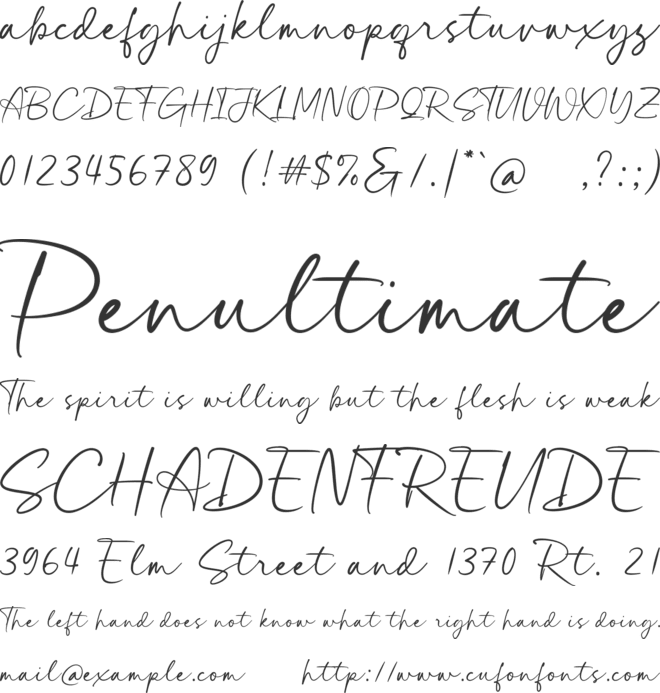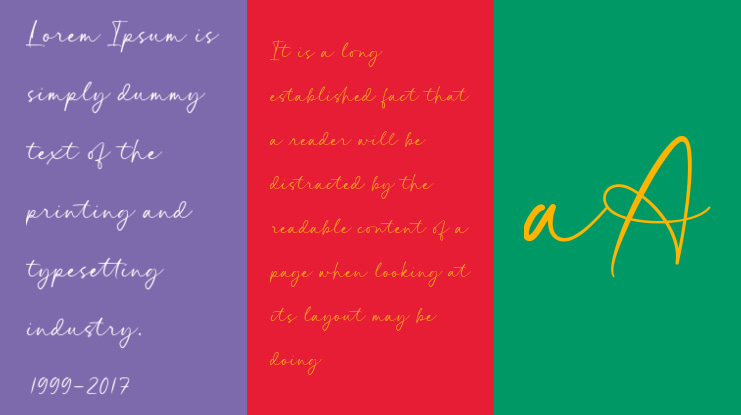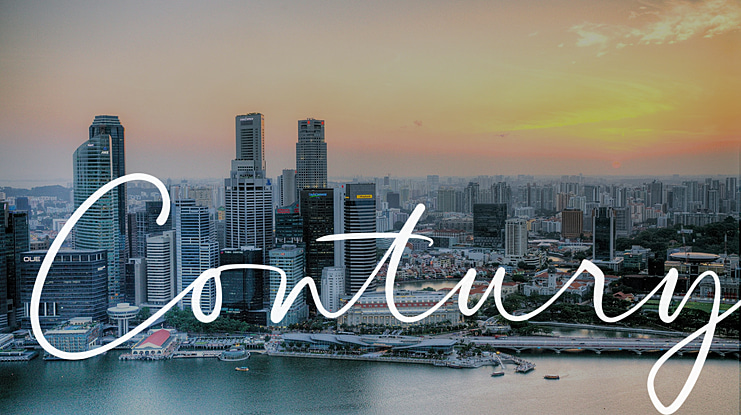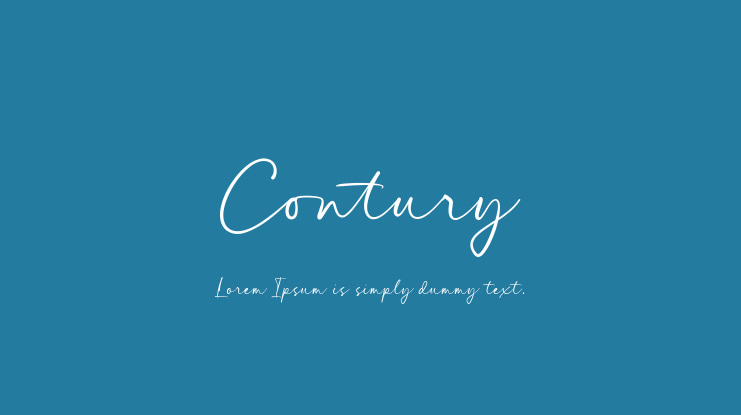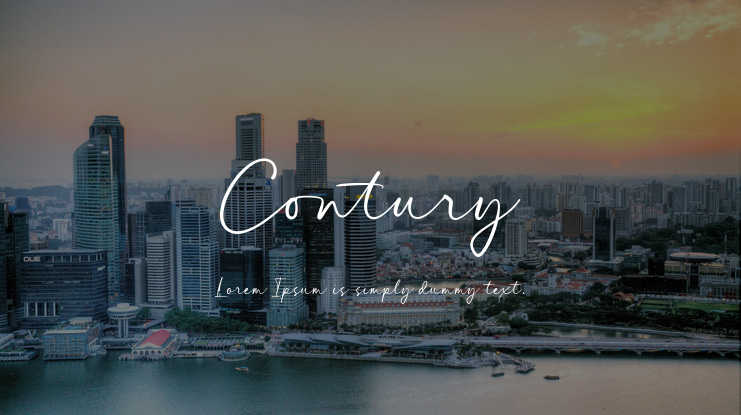
Contury Font
This typeface is designed with handwriting, and has a modern and unique calligraphy form, its writing style is very natural. It will add a luxury spark to any design project that you wish to create. Is perfect for many different project such as logos & branding, invitation, wedding designs, advertisements, product packaging, product designs, label and much more!